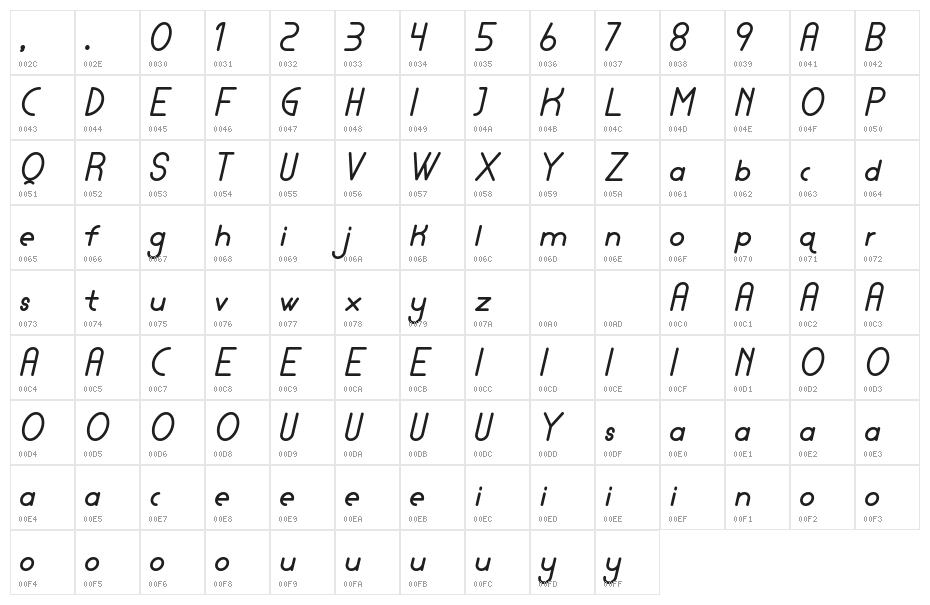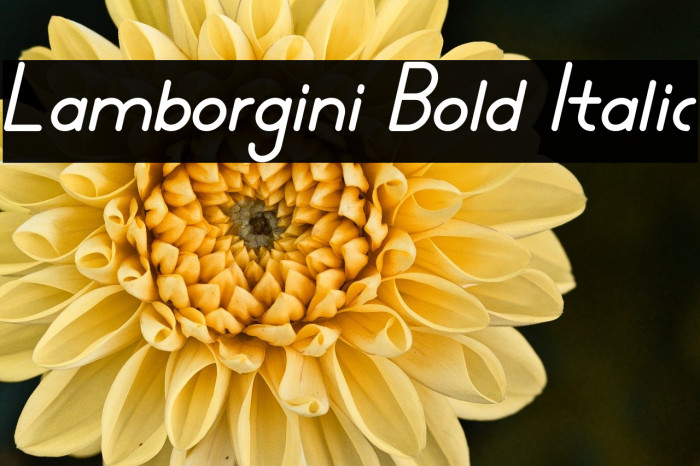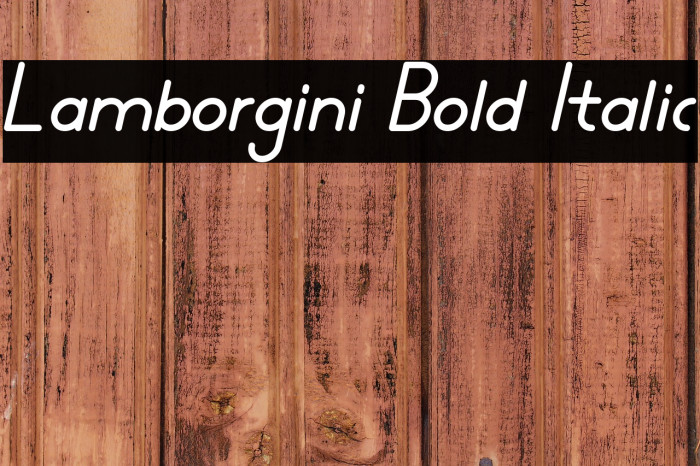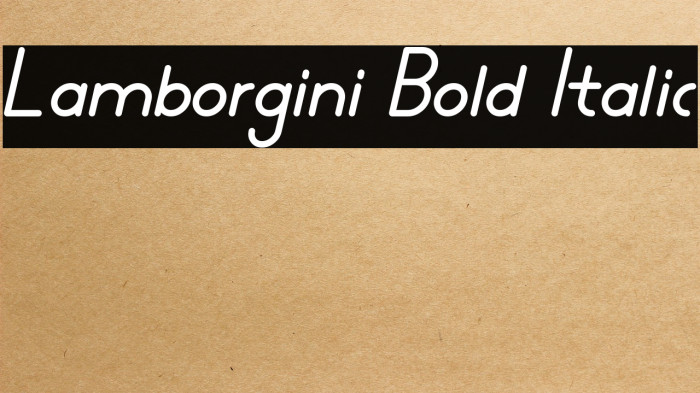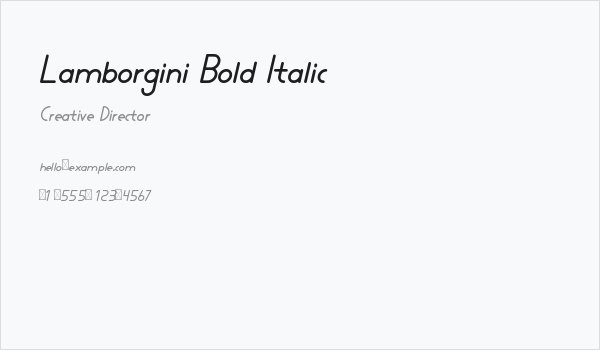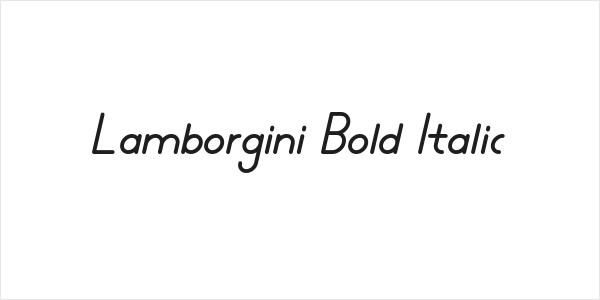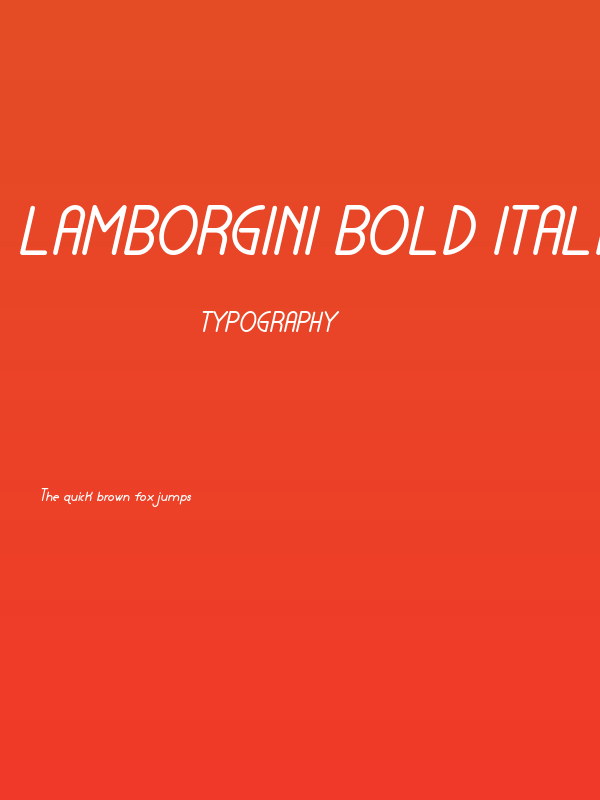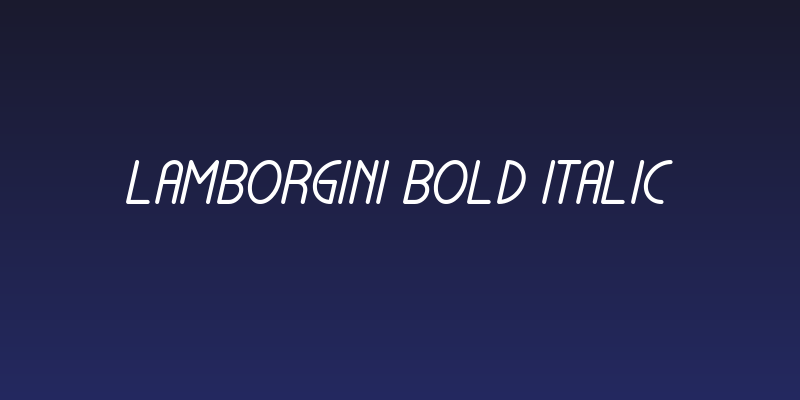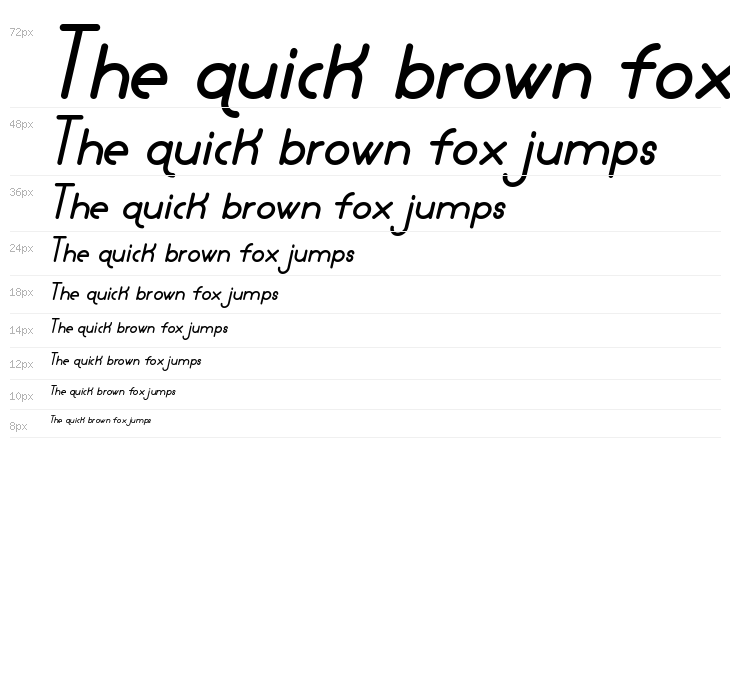
Lamborgini Bold Italic Font
Lamborgini Bold Italic Description
This font exhibits a sleek and modern design with a distinct italic slant, giving it a dynamic and forward-moving appearance. The characters are bold, with smooth curves and a consistent stroke width that maintains readability. The uppercase letters are tall and slightly condensed, while the lowercase letters are rounded and friendly. The numerals are clear and proportional, matching the overall style of the alphabet. This font's unique style is both contemporary and versatile, making it suitable for a variety of design applications.